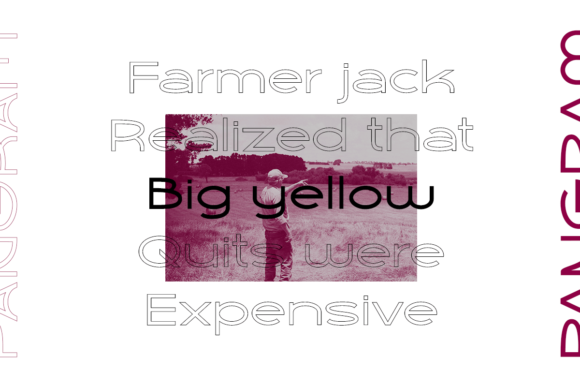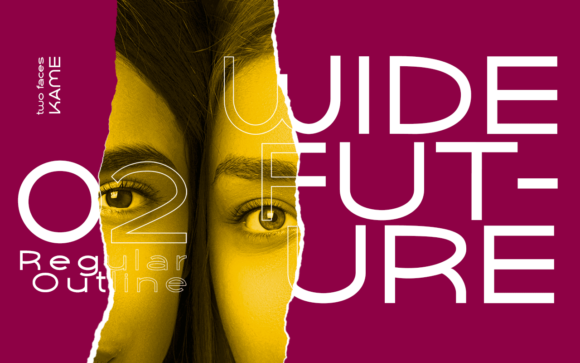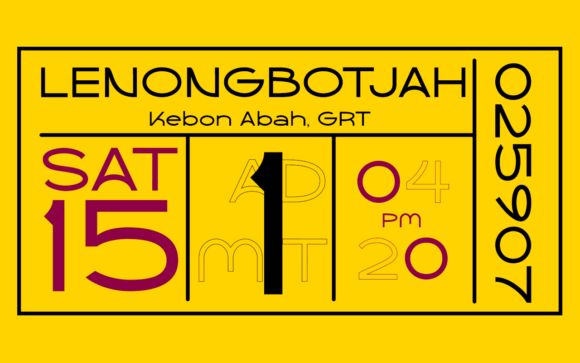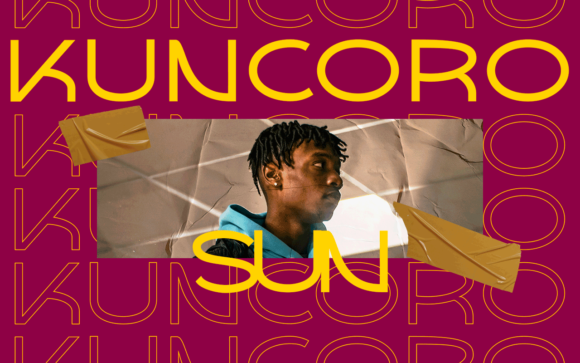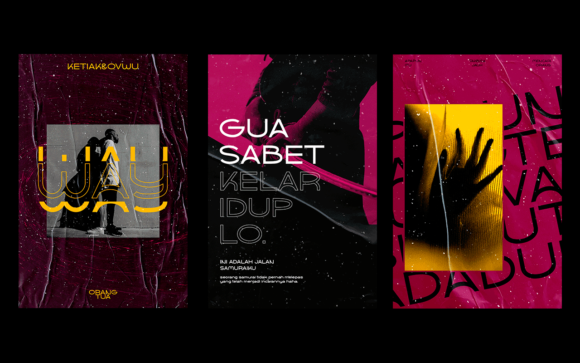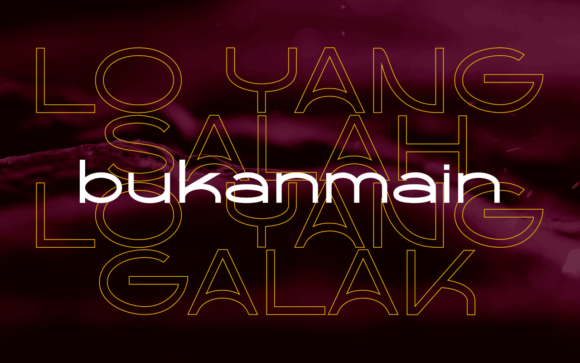
Introduction to Kame Font
Kame embodies fun, quirkiness and authenticity.
This enchanting display font will turn any creative idea into a true standout .
Key Features of Kame Font